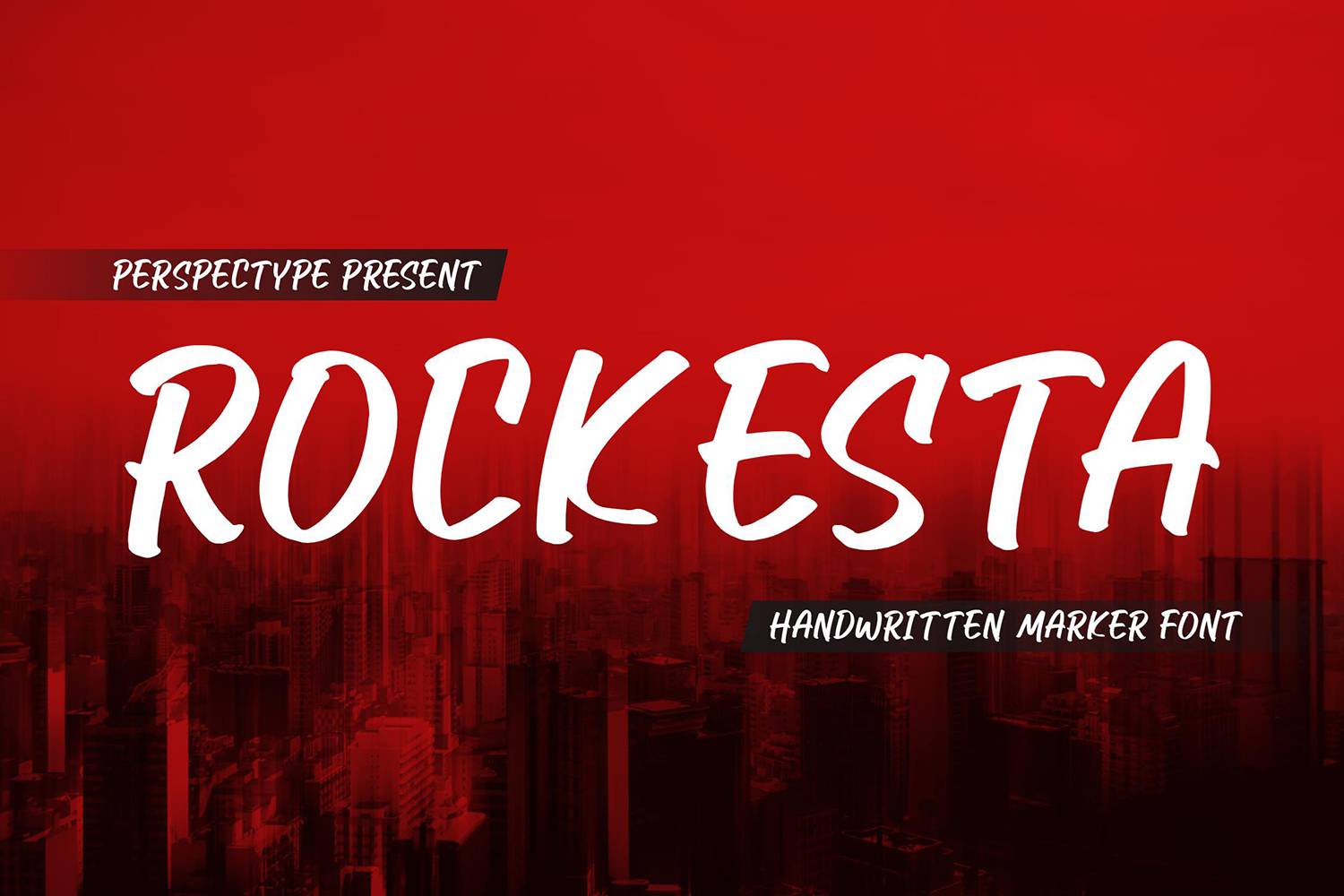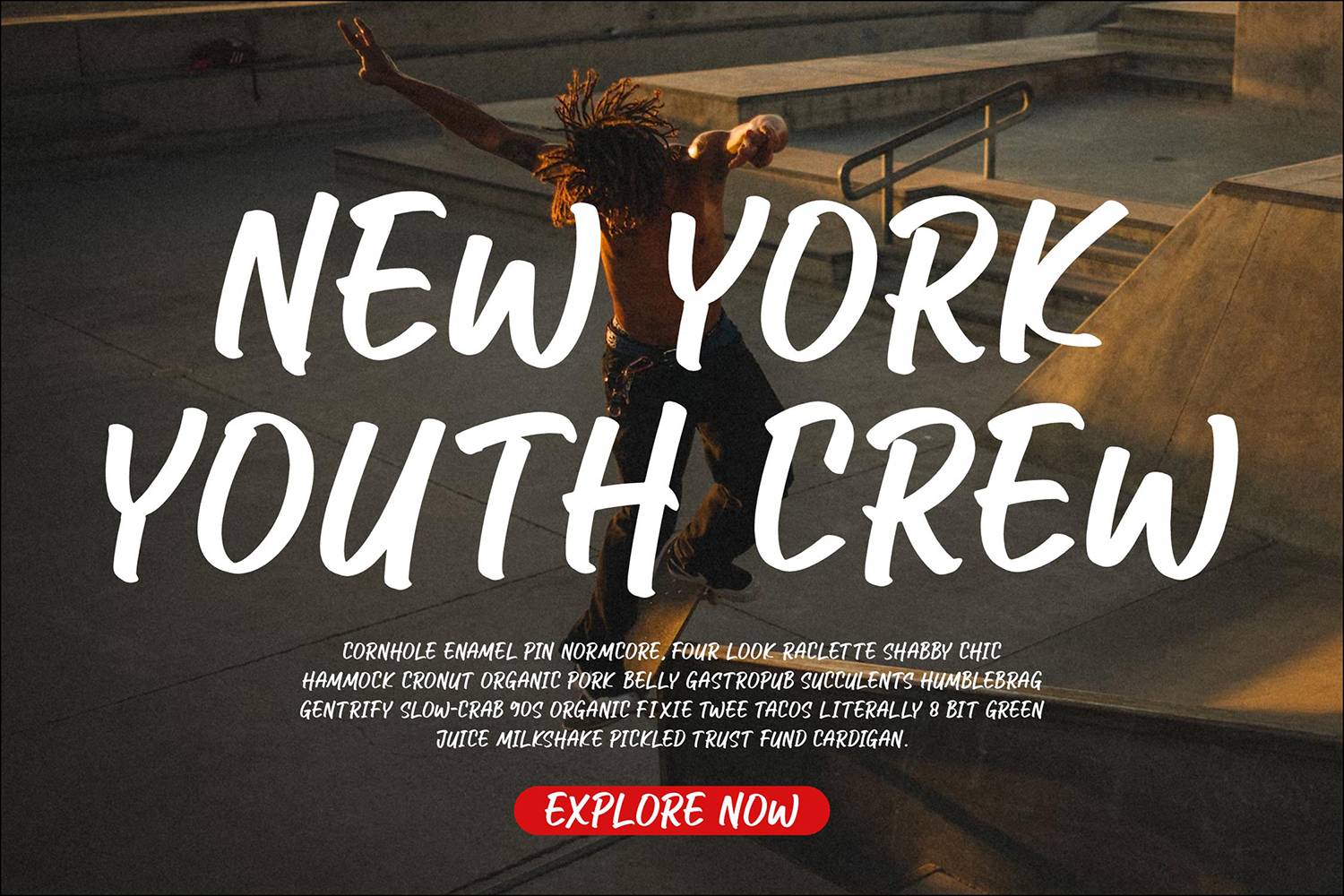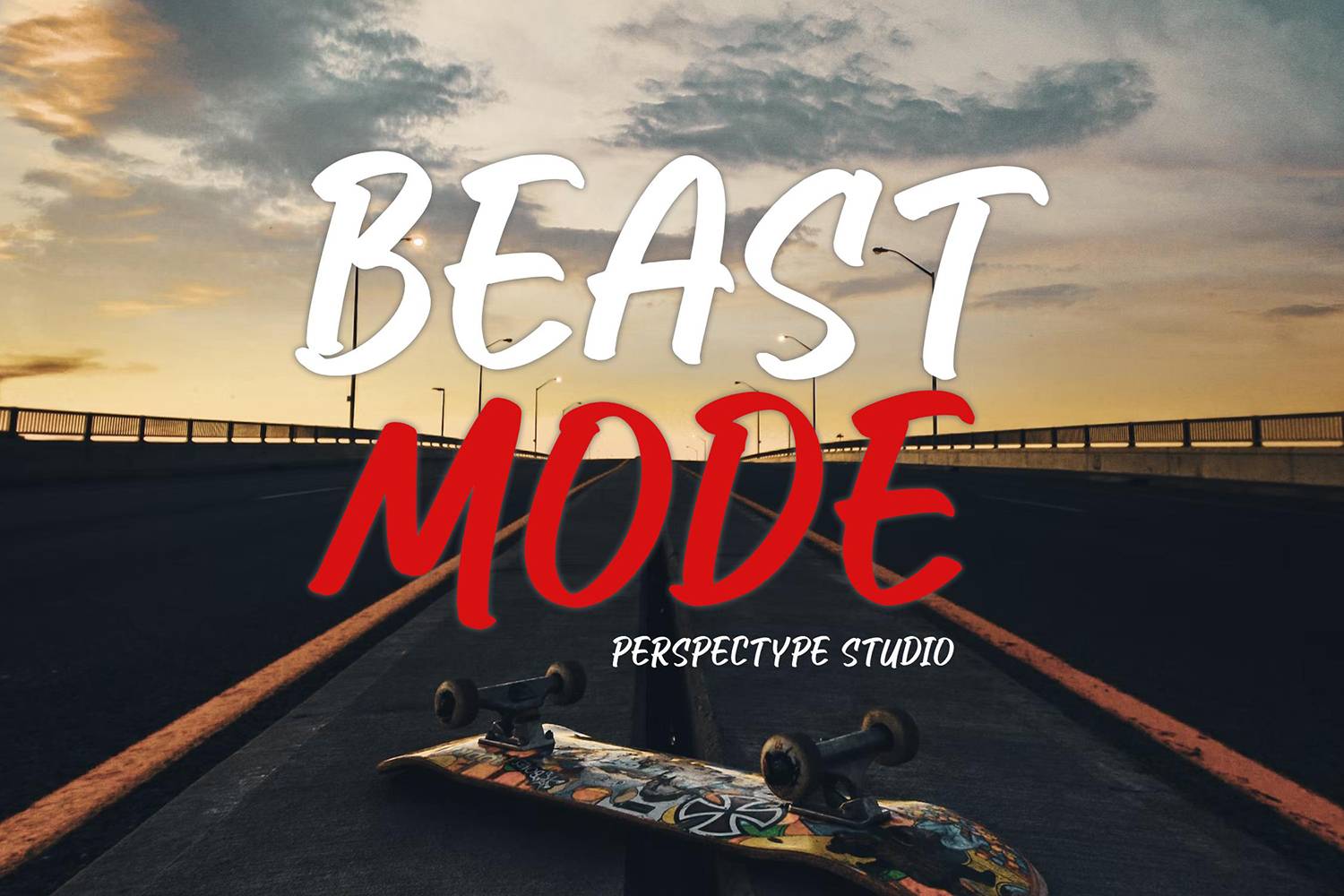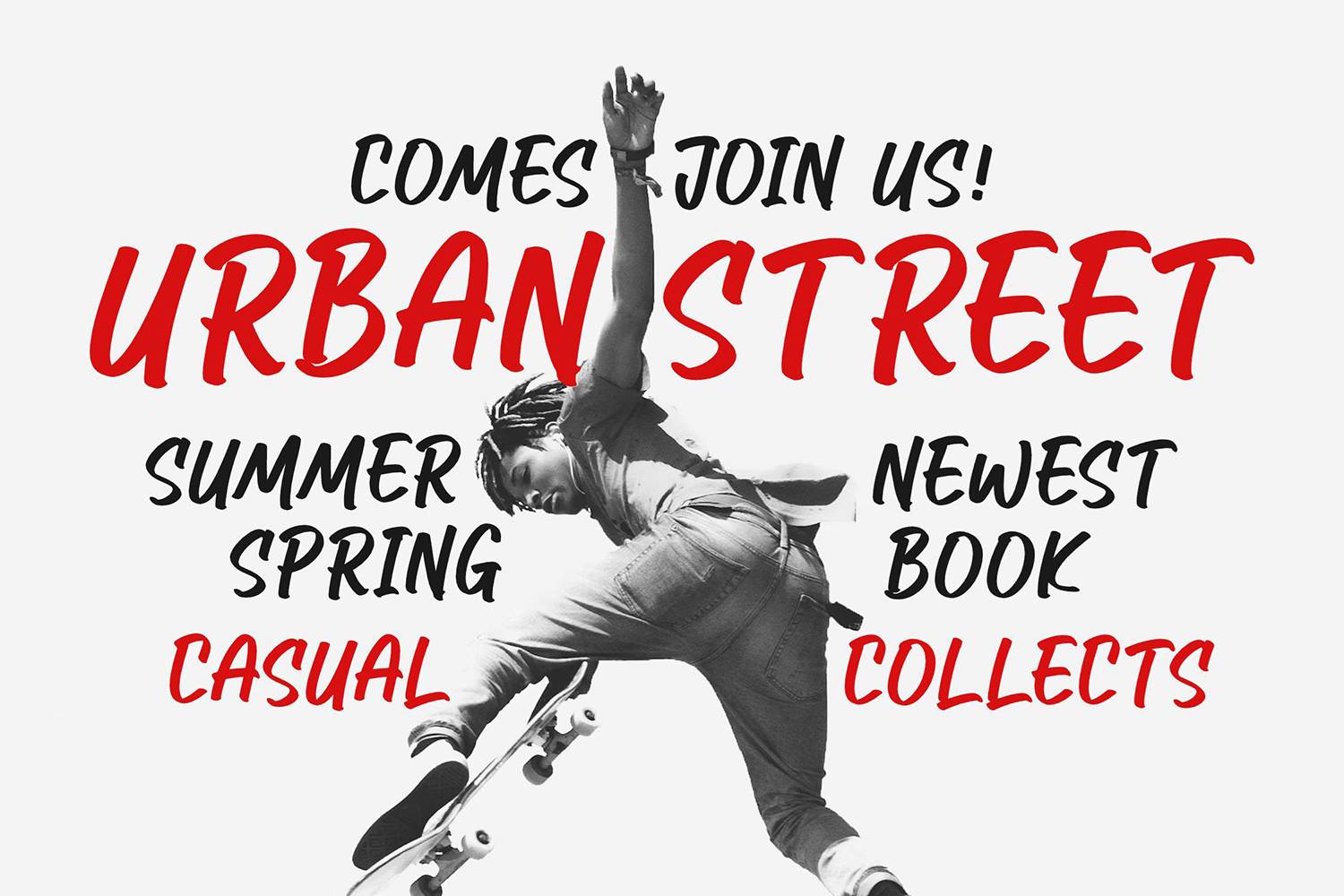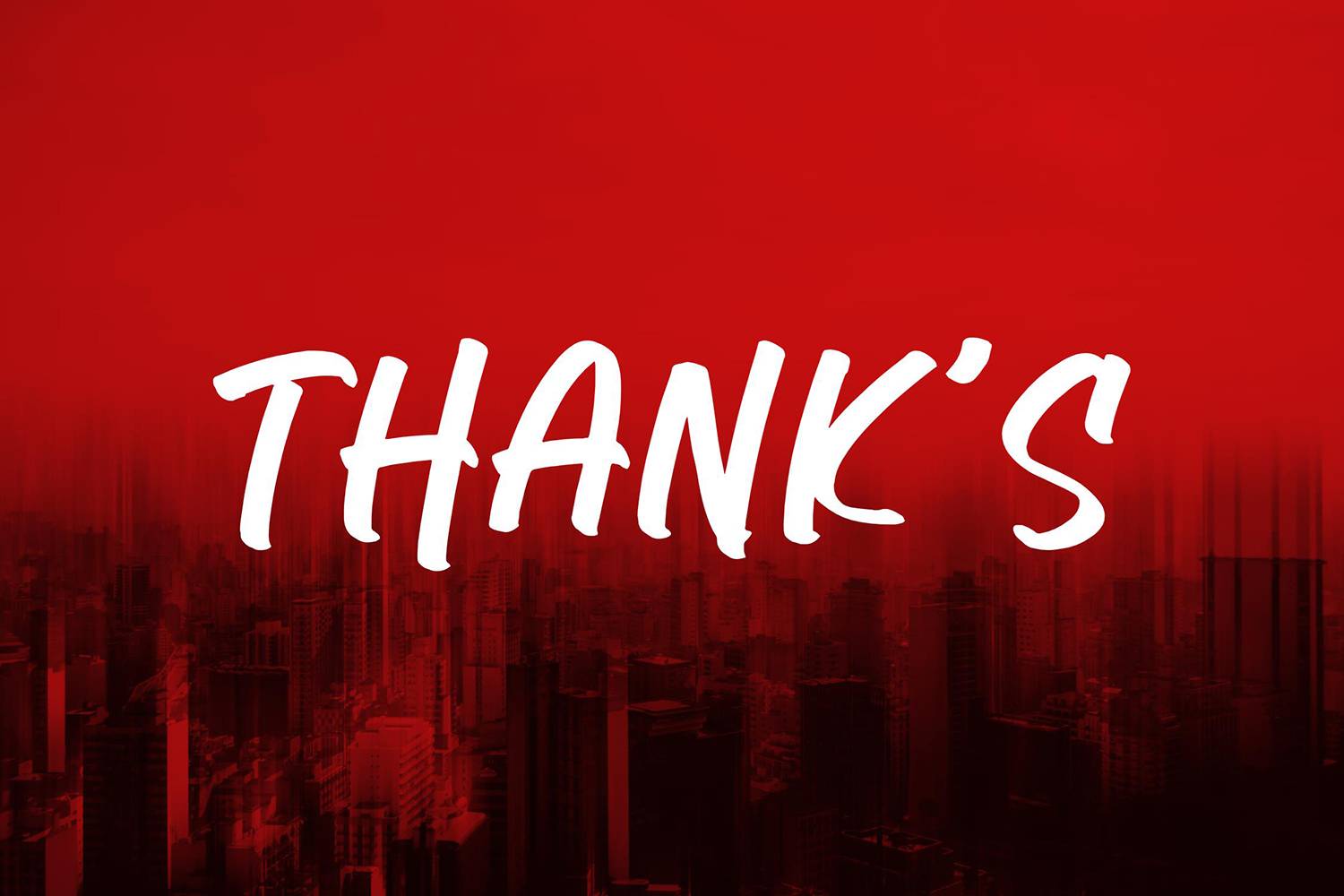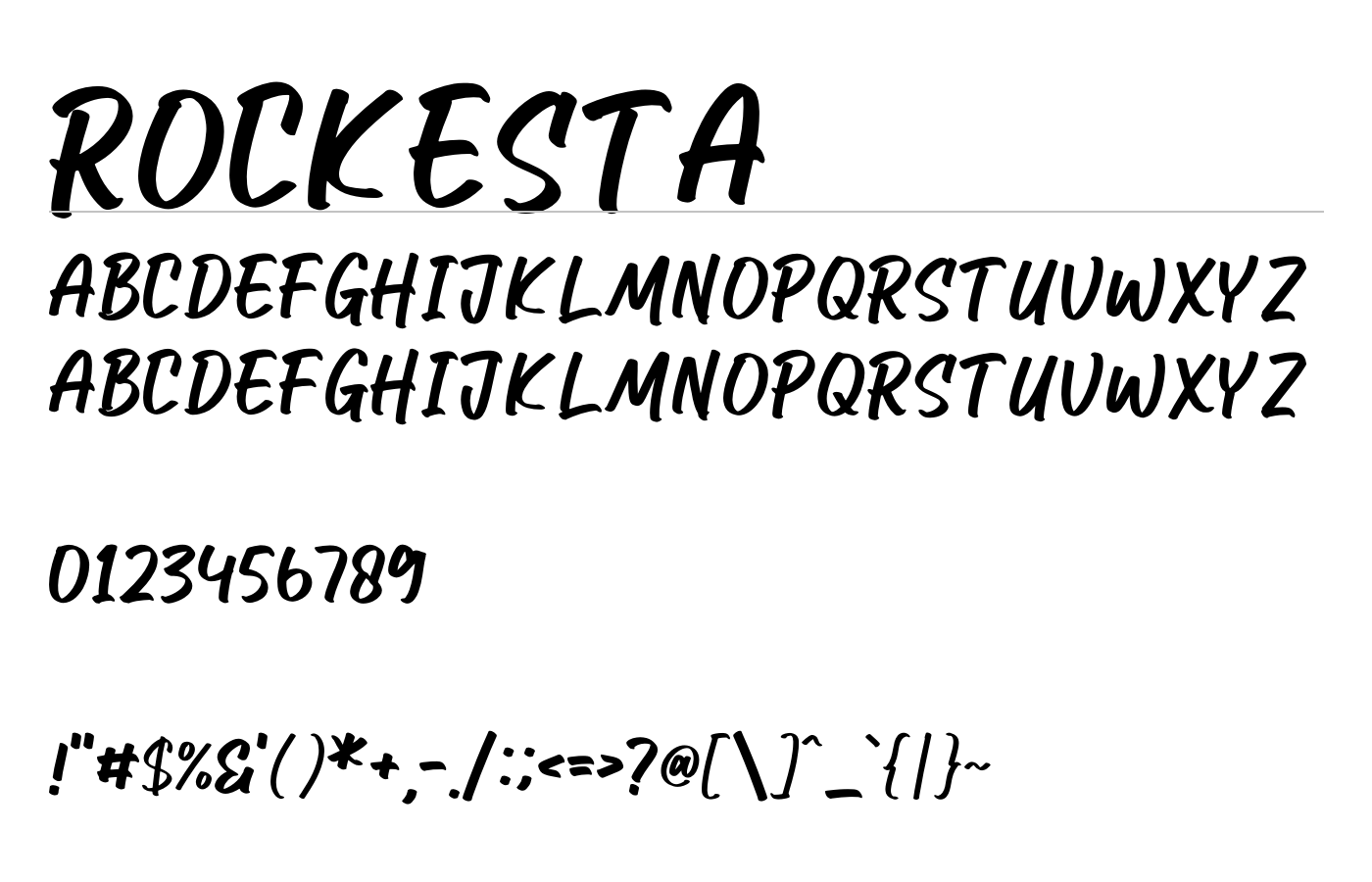
Rockesta is a lively, bold script font with a slightly casual, hand-painted feel. Its strong, dynamic strokes and clean, flowing letterforms make it perfect for adding energetic personality to headings, logos, and branding that want to convey creativity and approachability. This font works great for modern, playful designs seeking a friendly yet confident style.
Rockesta Font
About Rockesta Font